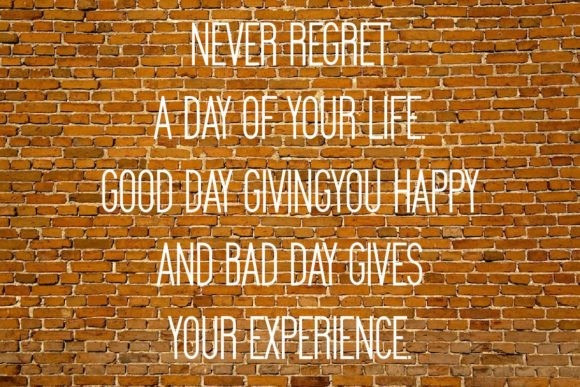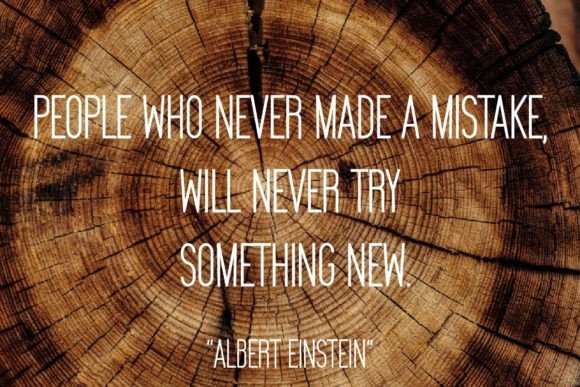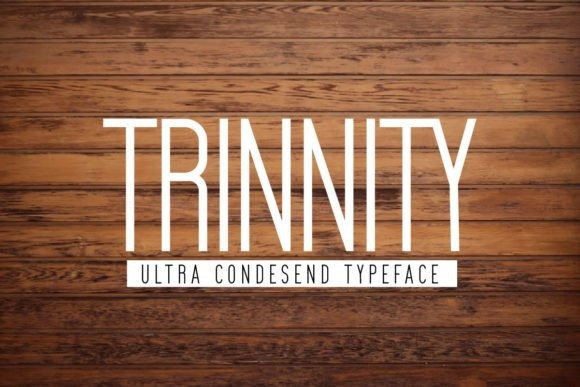
Trinnity Font
Trinnity Font, a highly compressed sans serif font from Fresh Pressed Fonts! Trinnity is a concise display font that’s perfect for bold headers and any design that requires an eye-catching header or text element. It will work well in a vertical layout as a bold element or can be used more simply in designs.